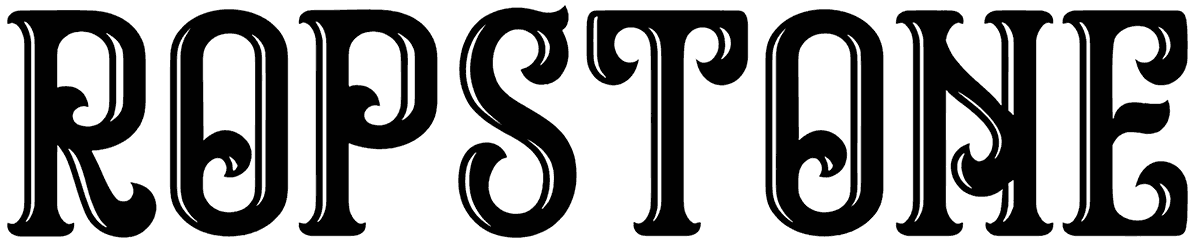
Ropstone Font
Classic movies, old-school bar signs, and cowboy-theme parties all have the same tune; they are vintage, and nothing can express that vibe better than a retro font. Therefore, we invite you to try Ropstone, a classic font that you only see in old western movies.
This font might come short in the lowercase of the alphabet, but the rest of the collection offers you two different sizes of uppercase, plus numbers and punctuation marks are all you need for your projects.